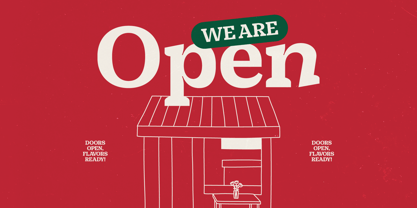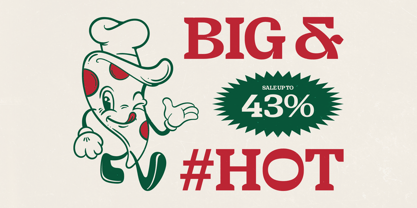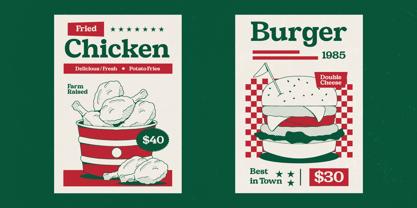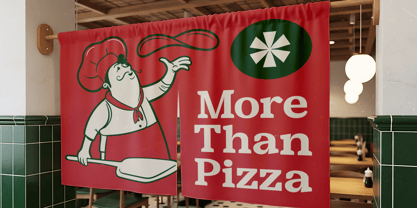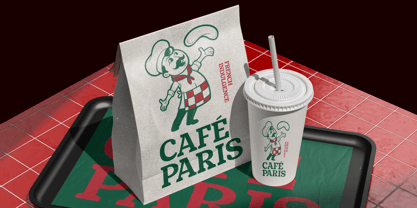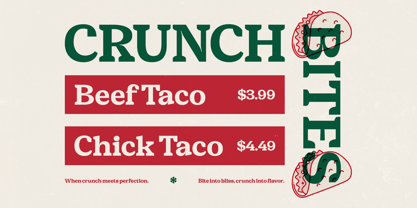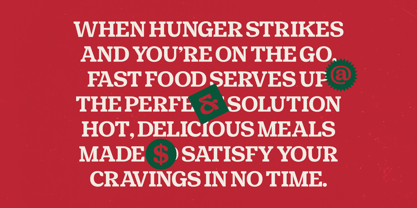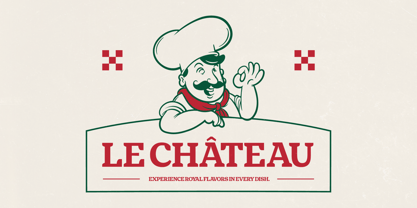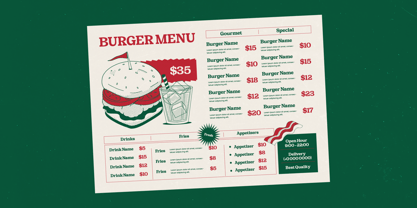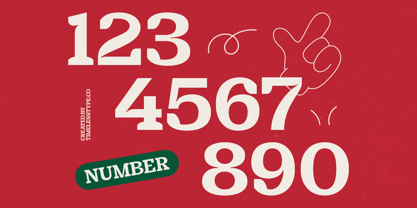
Snack Rush
by Timelesstype Studio
The Snack Rush Font Family was designed by Heru Utama Putra and published by Timelesstype Studio. Snack Rush contains 2 styles and family package options. More about this family
Snack Rush is a bold modern display serif designed with strong curves, sharp character forms, and a nostalgic diner-inspired personality. Its playful yet sturdy structure makes it perfect for food branding, retro packaging, café menus, poster headlines, restaurant signage, and eye-catching editorial layouts. With 13 ligatures and 18 stylistic alternates, Snack Rush gives you the flexibility to build expressive titles that carry charm, confidence, and a delicious visual punch. Ideal for designers who want a serif that feels bold, friendly, and irresistibly fun.